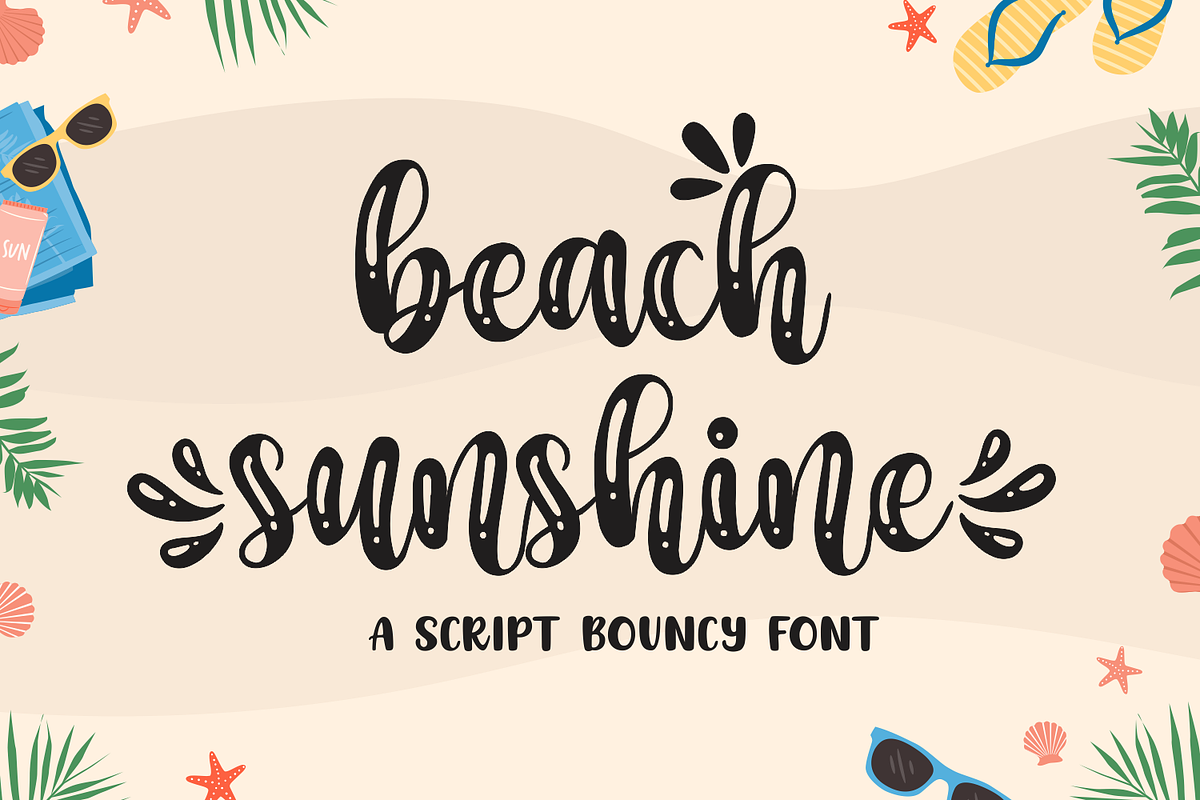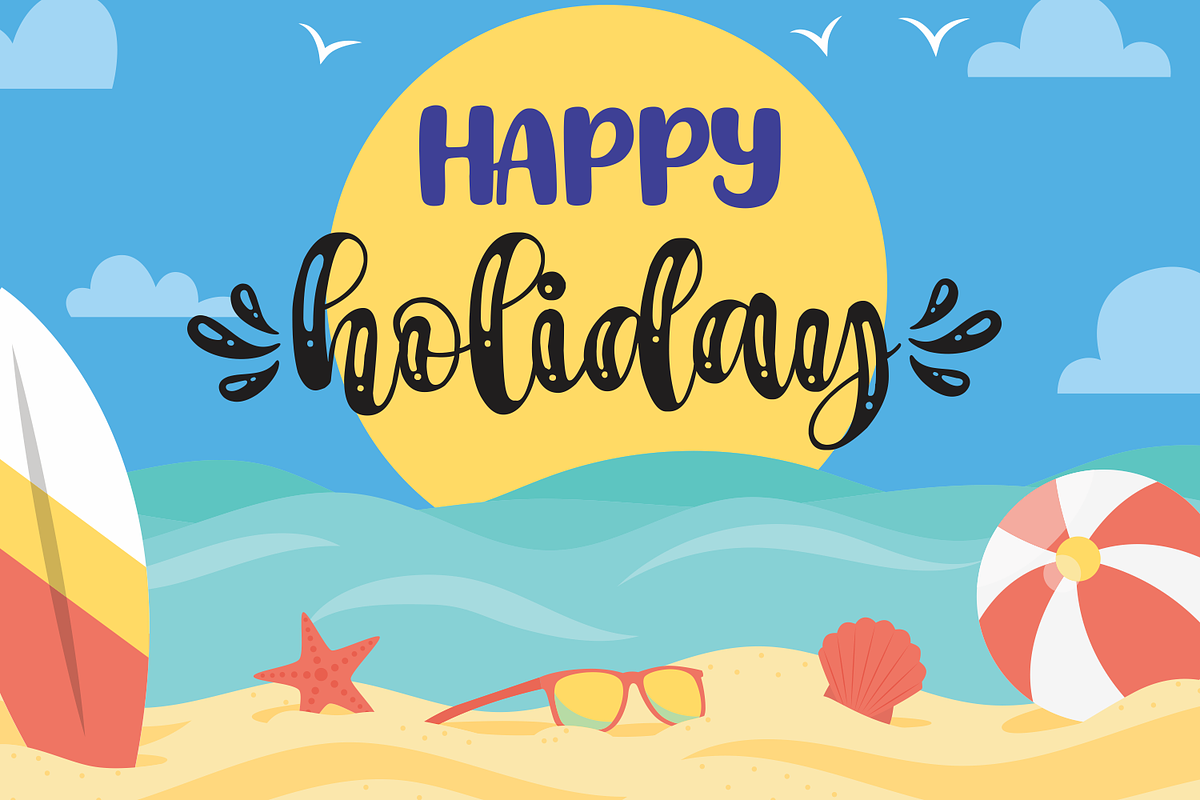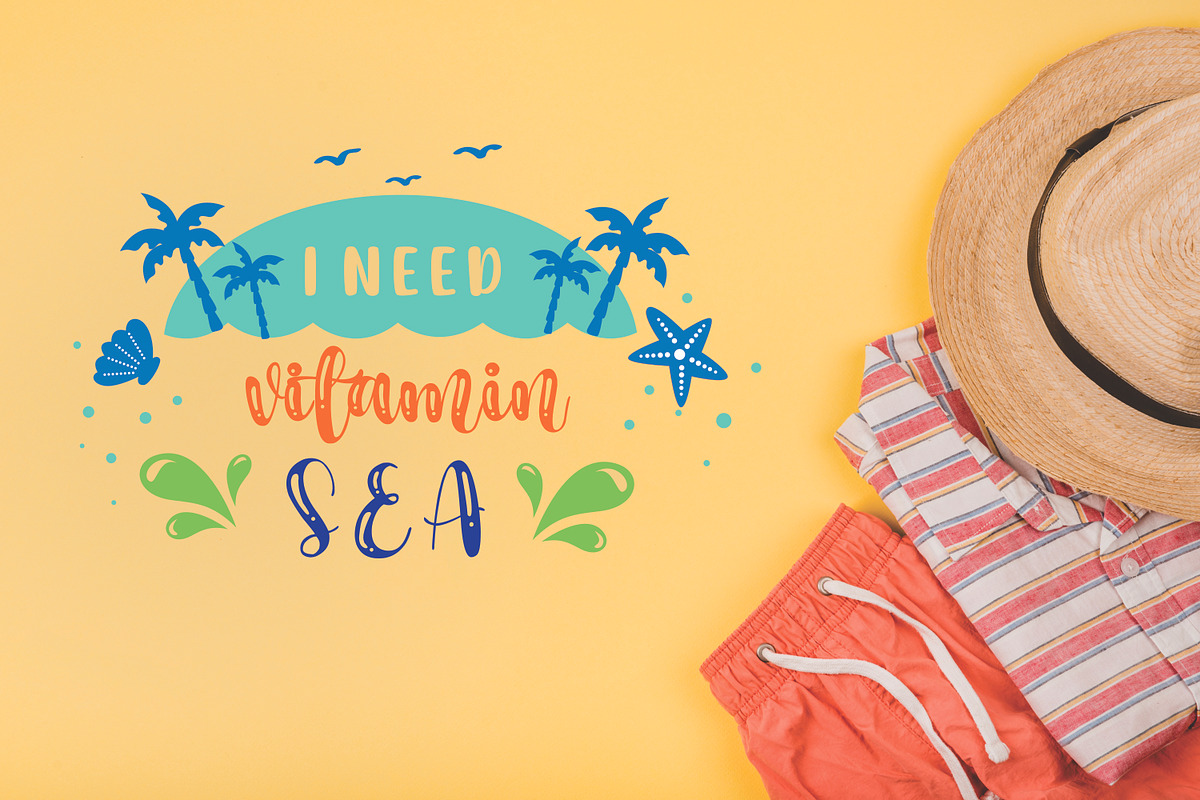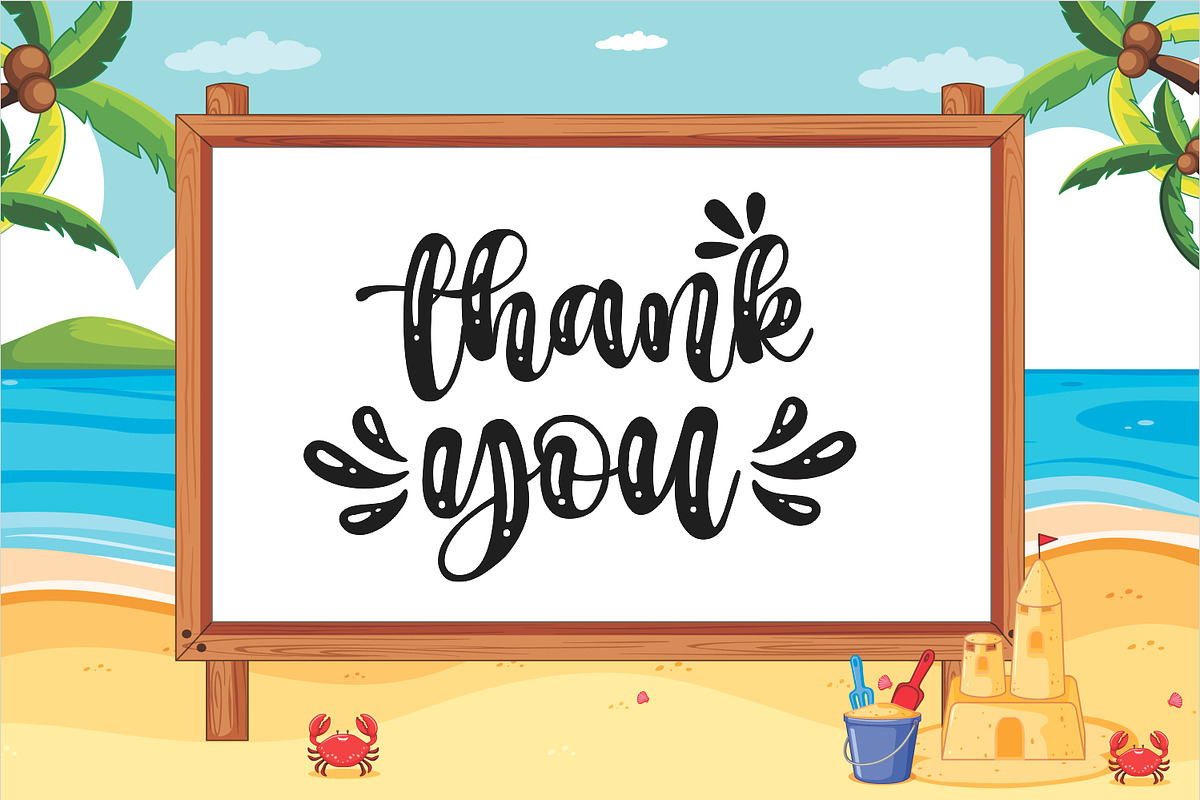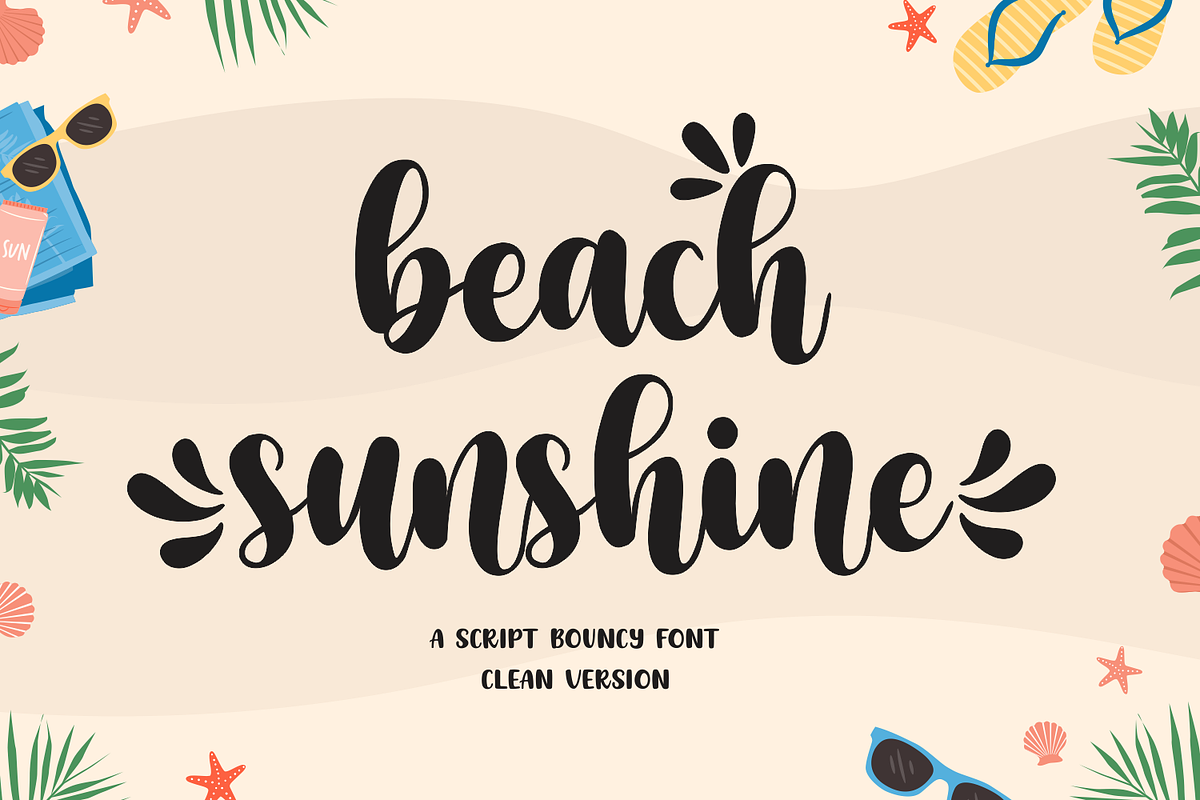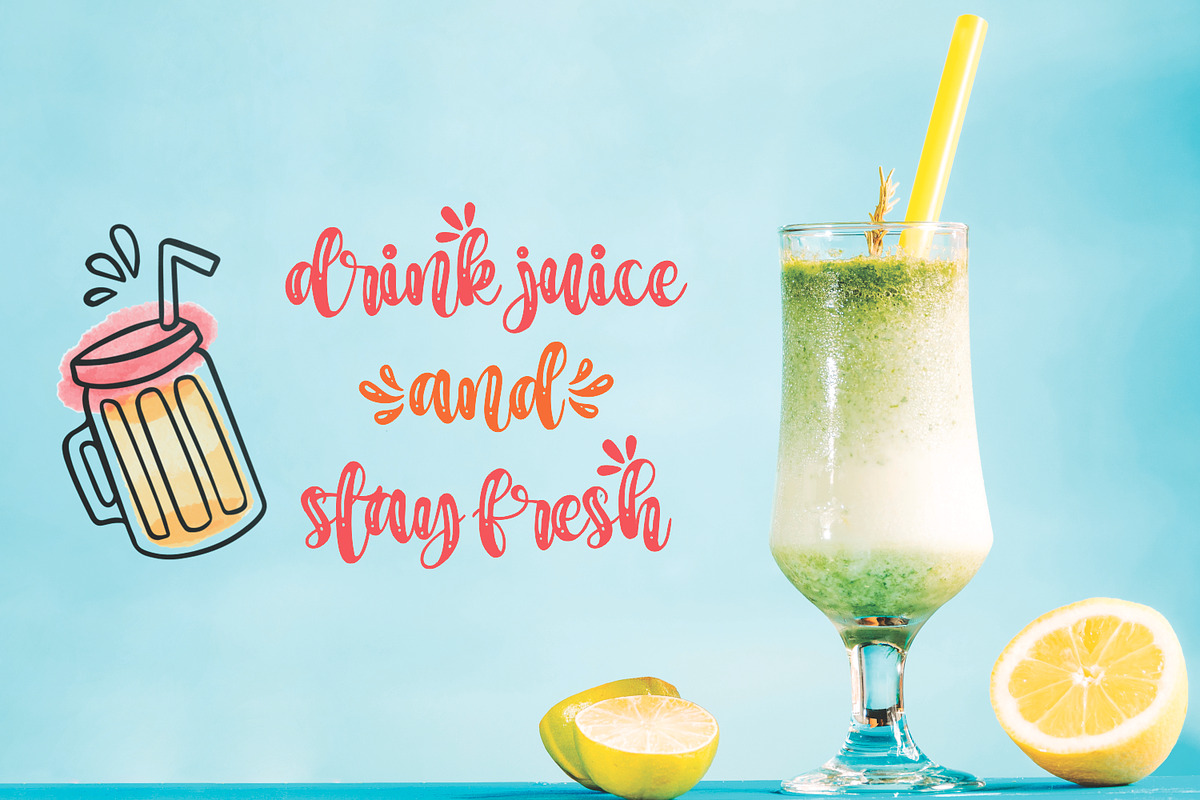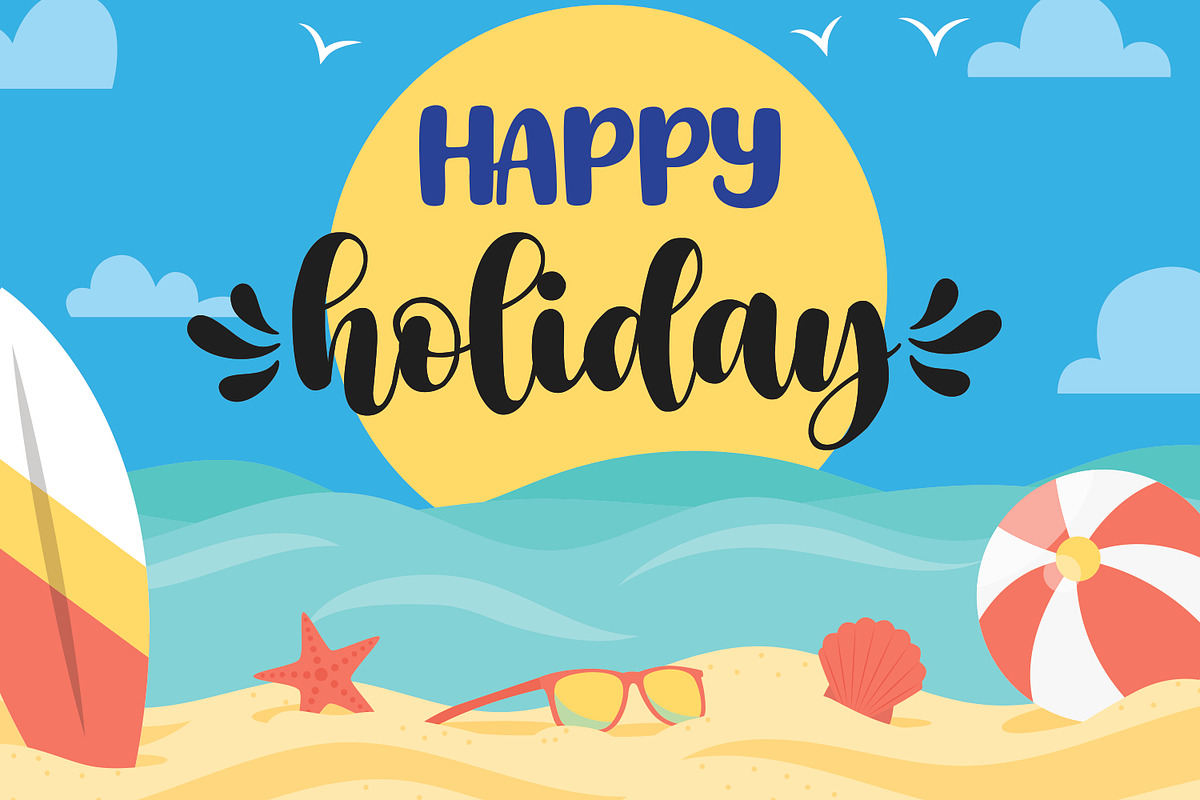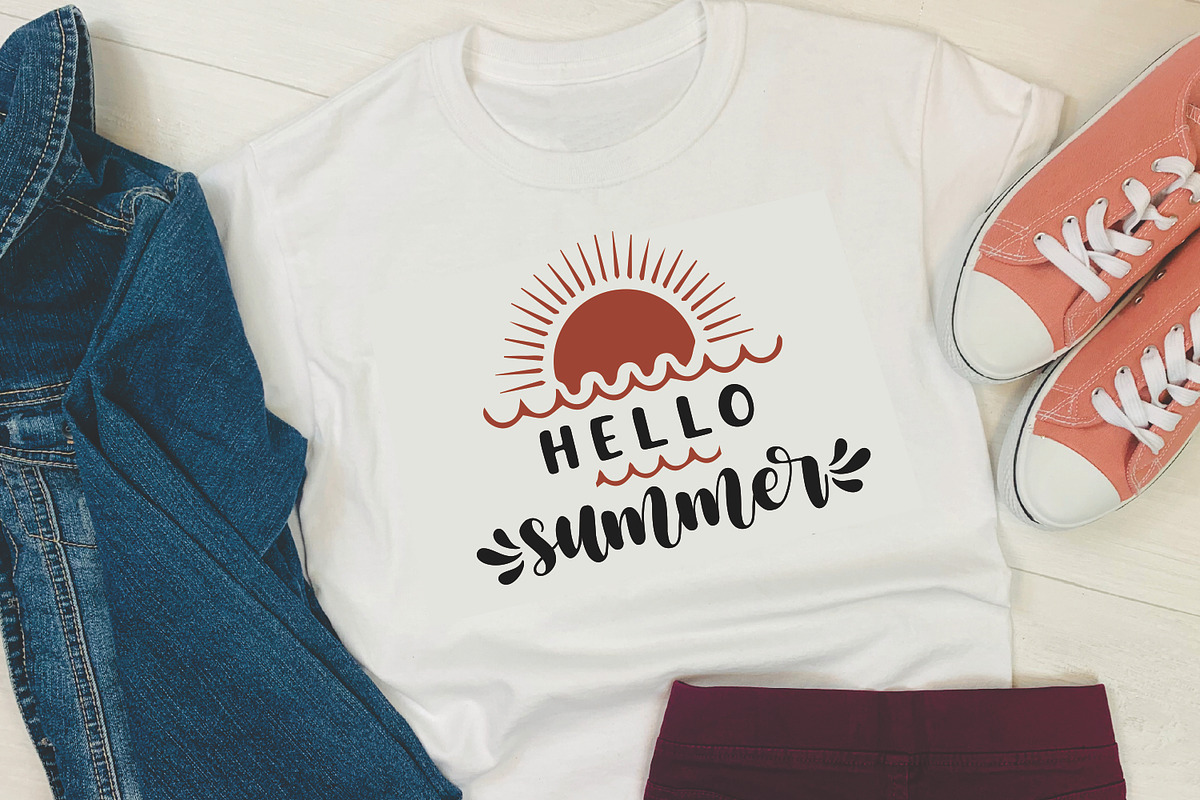
Beach Sunshine
Beach Sunshine is a fresh and sweet handwritten font. It consists of two versions: Clean dan Texture Version
A little bit quirky, this font looks incredibly adept on a wide variety of contexts. Fall in love with its incredibly versatile style and use it to create spectacular designs!
This font is ideal for crafting, branding and decorates your any project. This font are perfect for wedding invitation or your blog. Also with their help, you can create a logo or beautiful frame for your home. Or just use it for your business, book covers, stationery, marketing, magazines and more.
Fall in love with its incredibly versatile style and use it to create spectacular designs! Use this font for any crafting project that requires a personalized look!